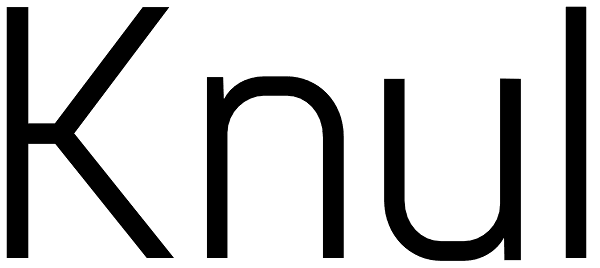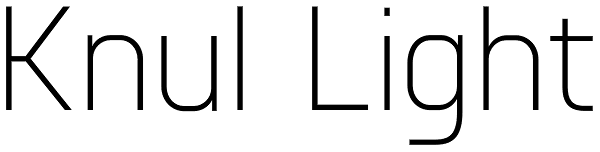
Knul
An elegant modern typeface with a subtle monoline appearance. The simplicity of the design creates clean forms best suited to identity, editorial and advertising uses. Details include 6 weights with italics, an extended European character set...